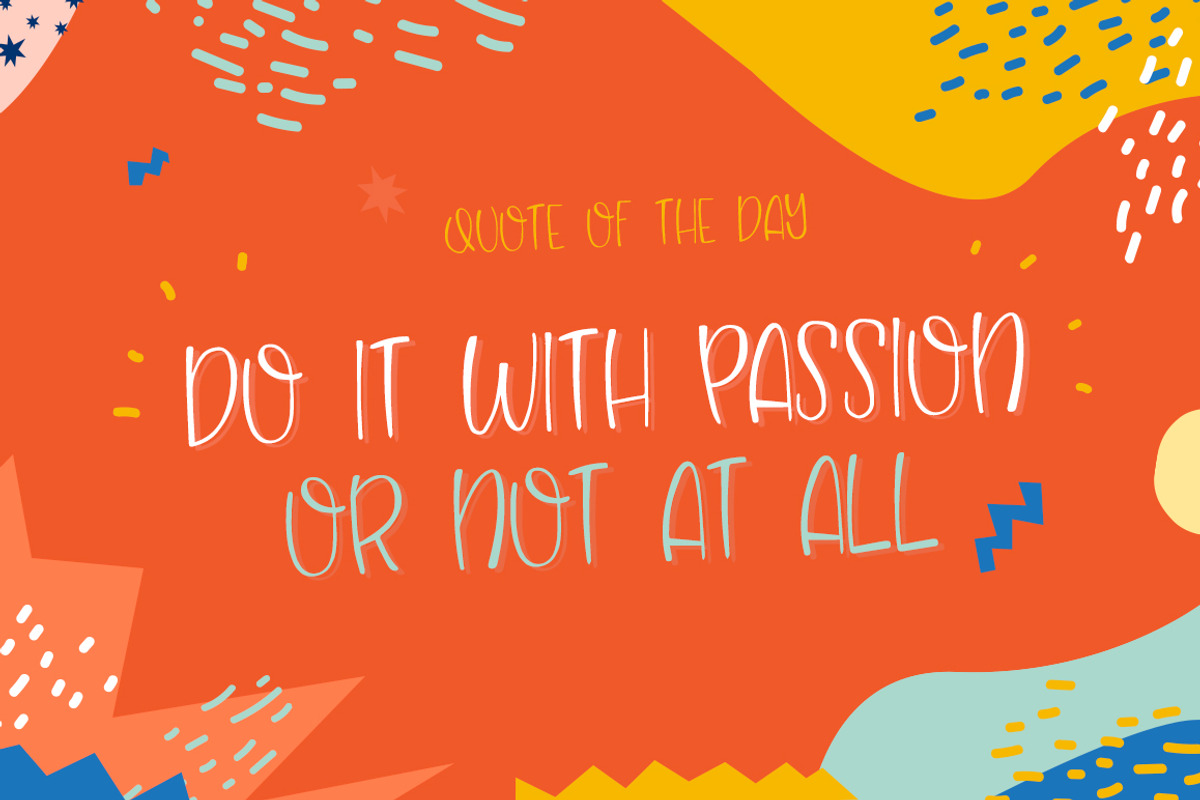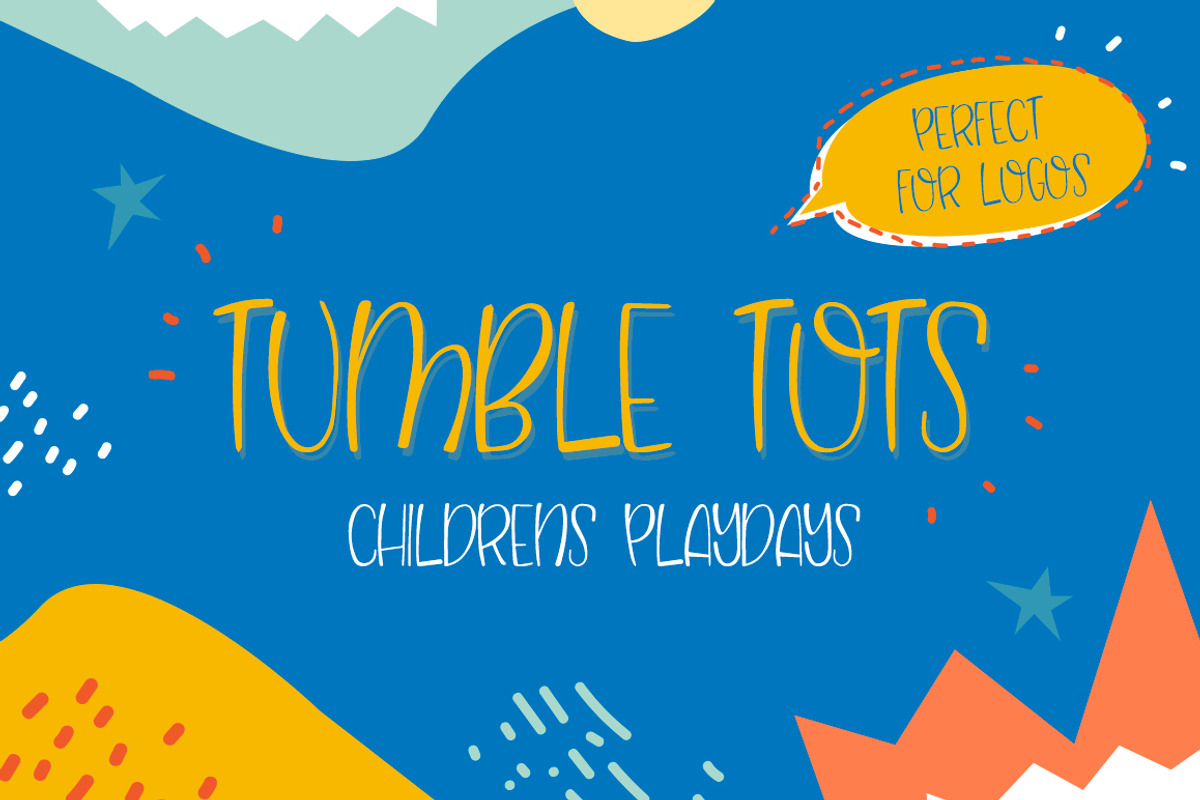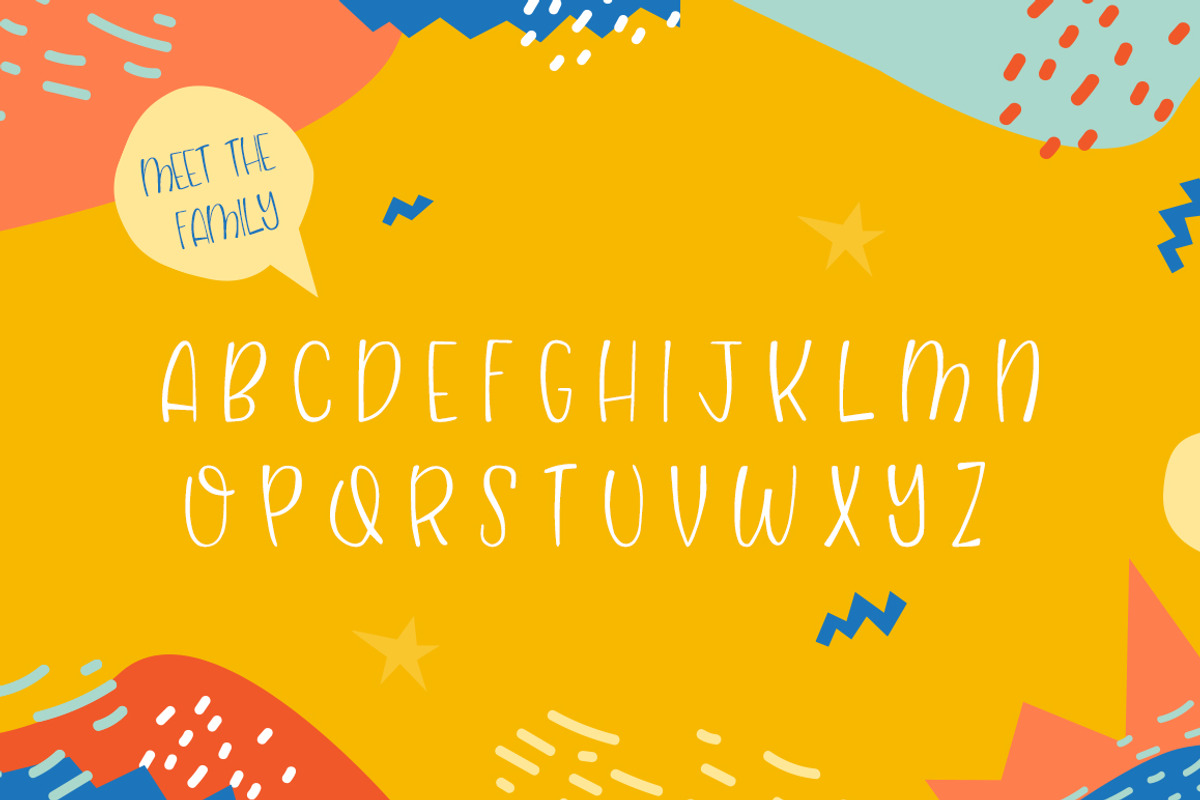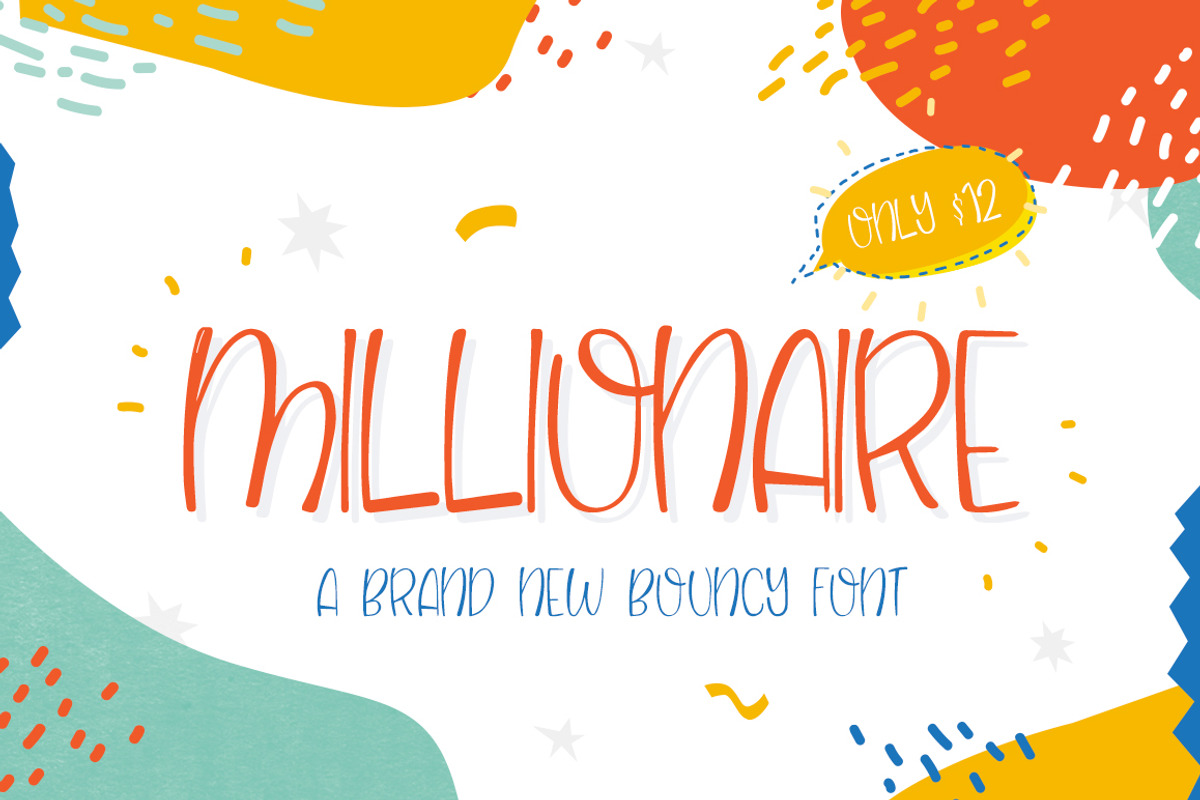
Millionaire... a new font from Salt and Pepper designs! A modern millionaire who is comfortable being casual and chill, young and fun! A bouncy typeface with lashings of character that's almost as sweet as billionaire shortbread (a fair few million grams less if sugar!) enjoy!